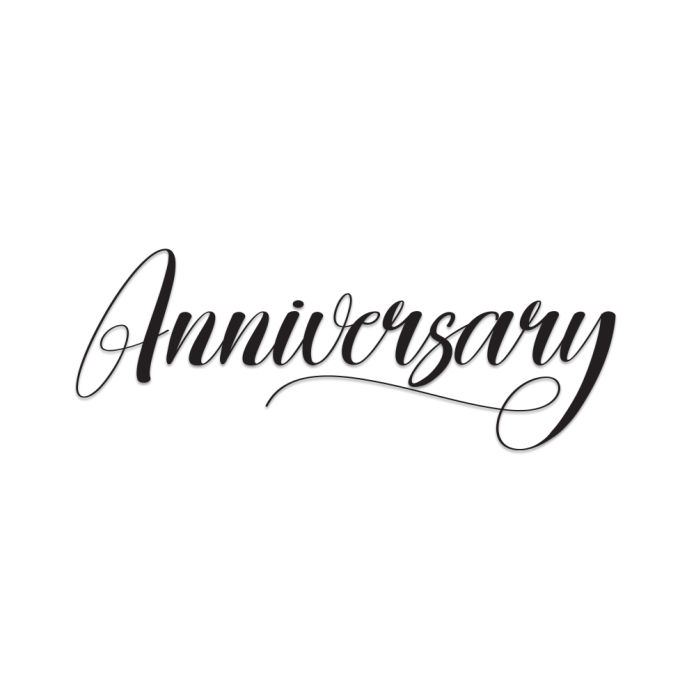
Anniversary is a graceful and romantic handwriting font that captures the essence of special moments. With smooth strokes, flowing curves, and a refined personal touch, this font is perfect for commemorating meaningful occasions.
Whether you're designing wedding invitations, anniversary cards, love letters, branding for elegant products, or social media quotes, Anniversary adds a heartfelt and timeless beauty to your text.
Romantic and stylish handwriting style
Natural letter flow with soft curves
Perfect for weddings, events, stationery, and quotes
Includes uppercase, lowercase, punctuation, and symbols
Celebrate love and memories with the elegance of Anniversary.